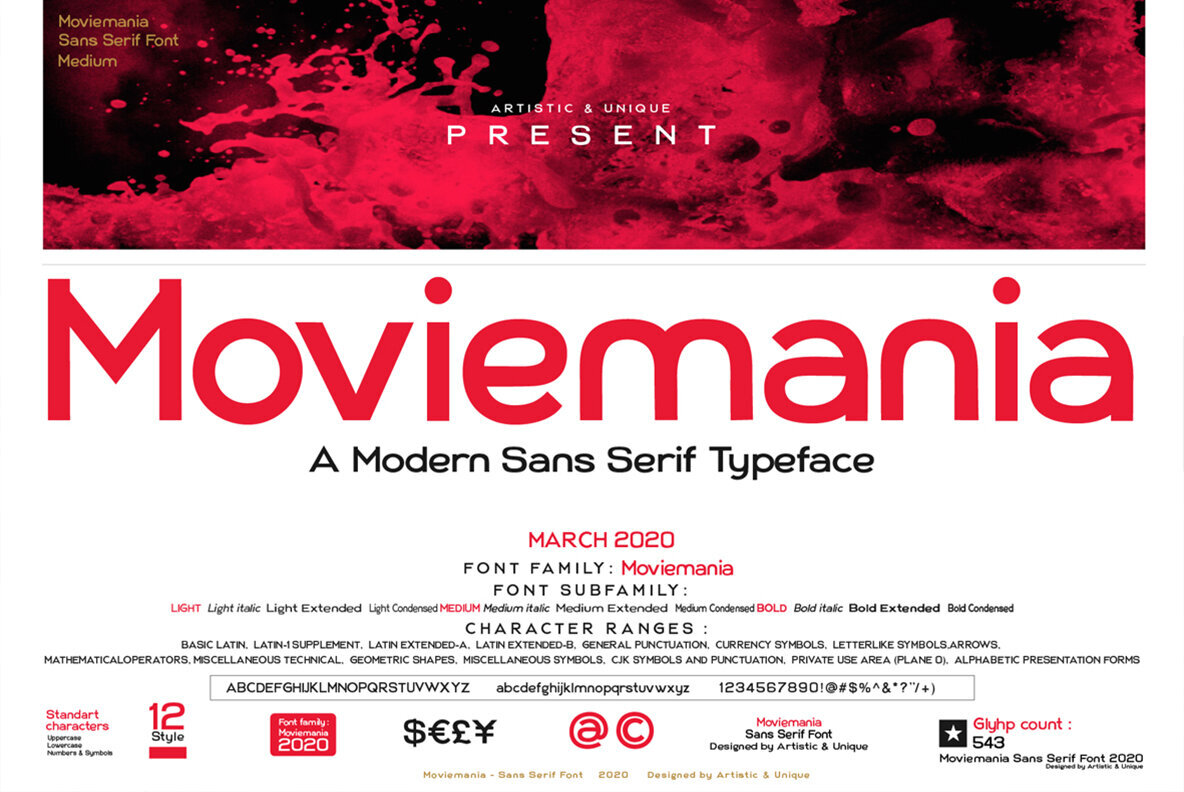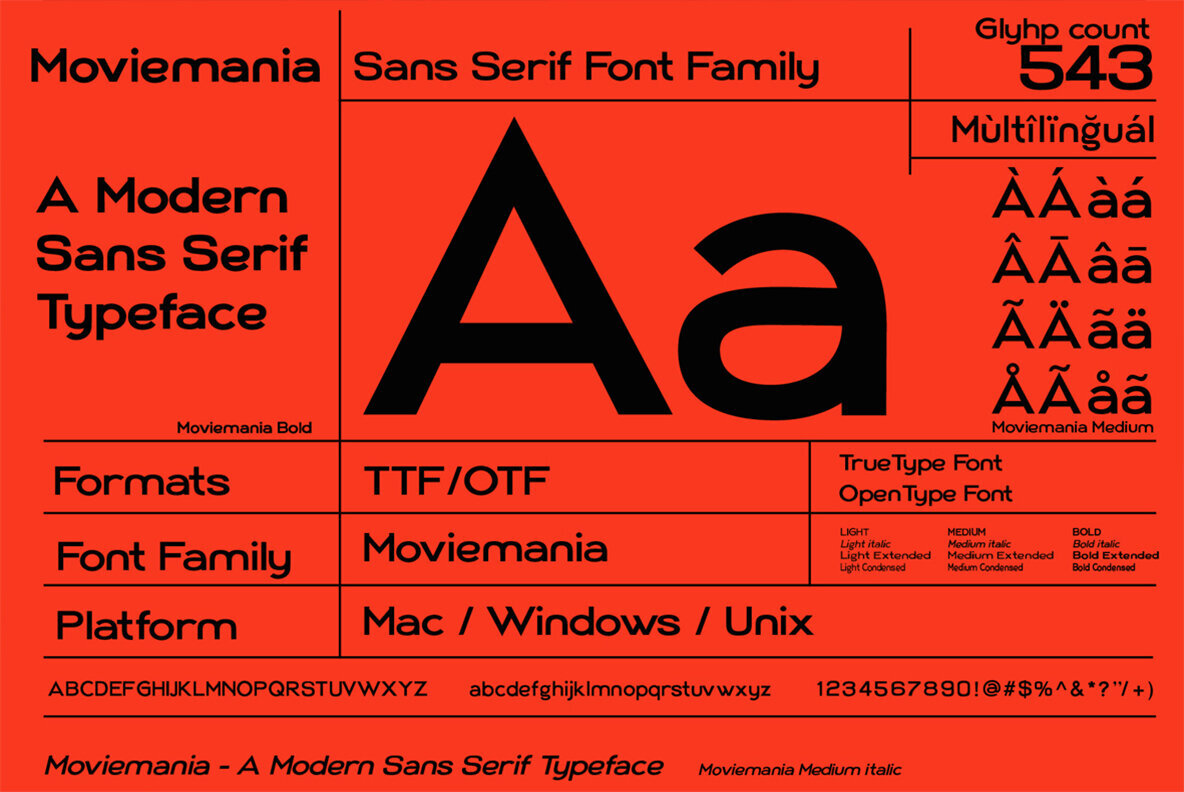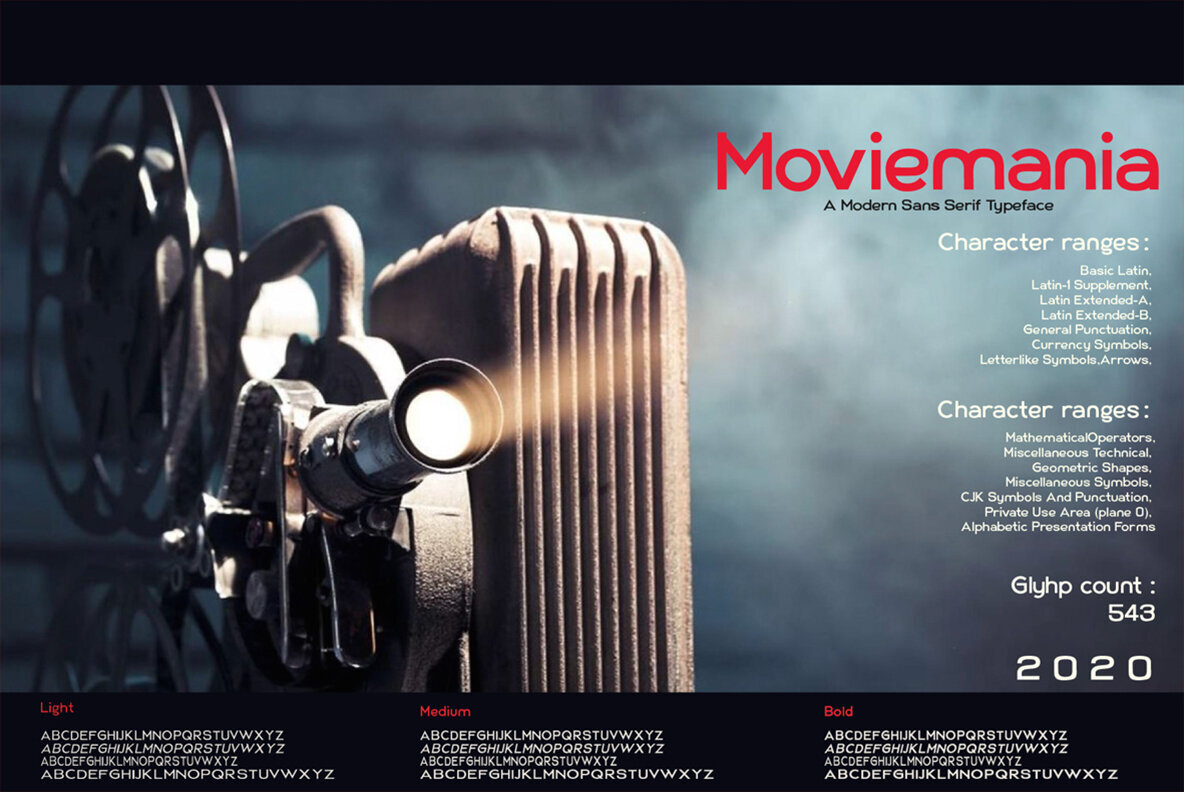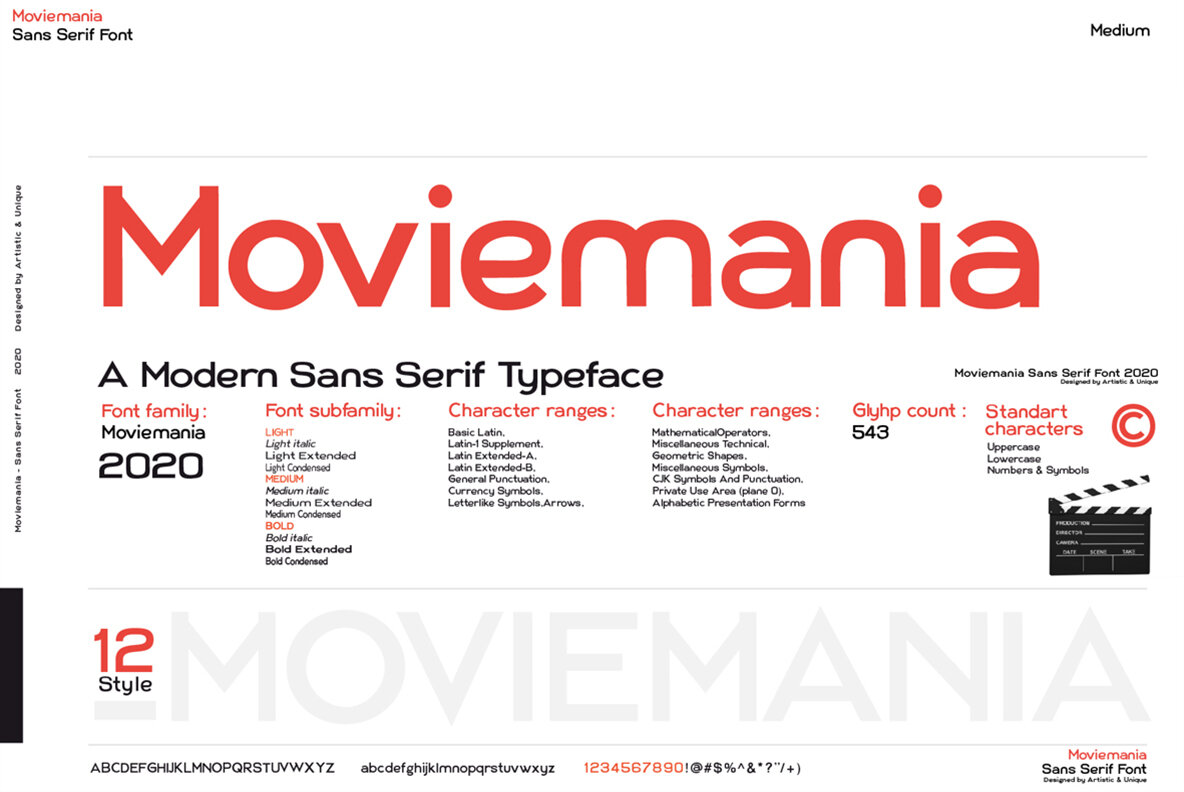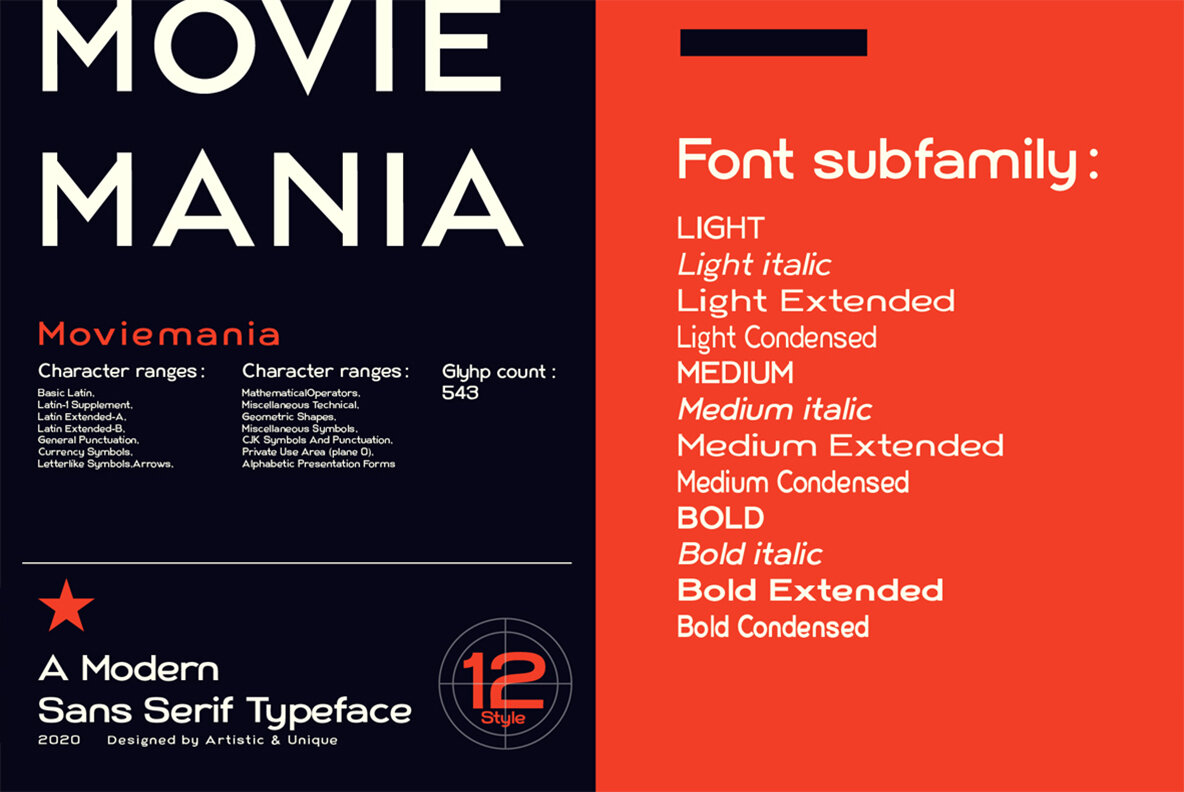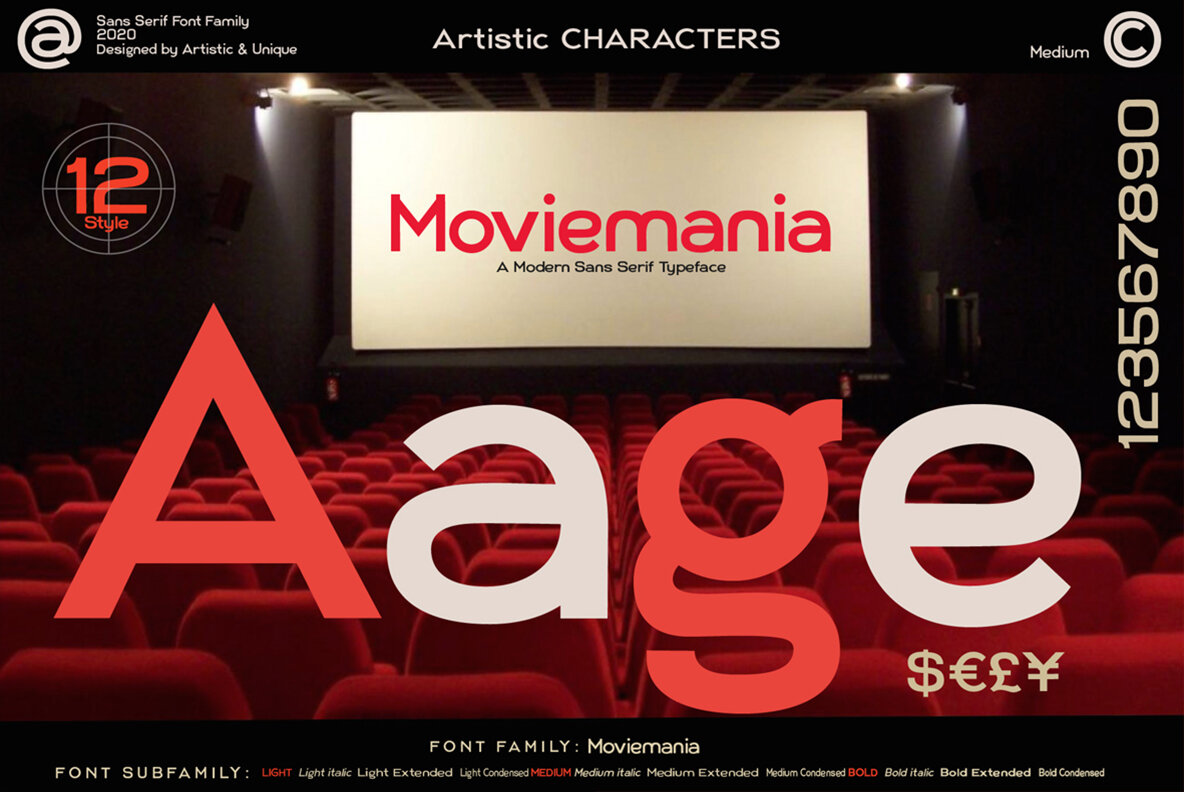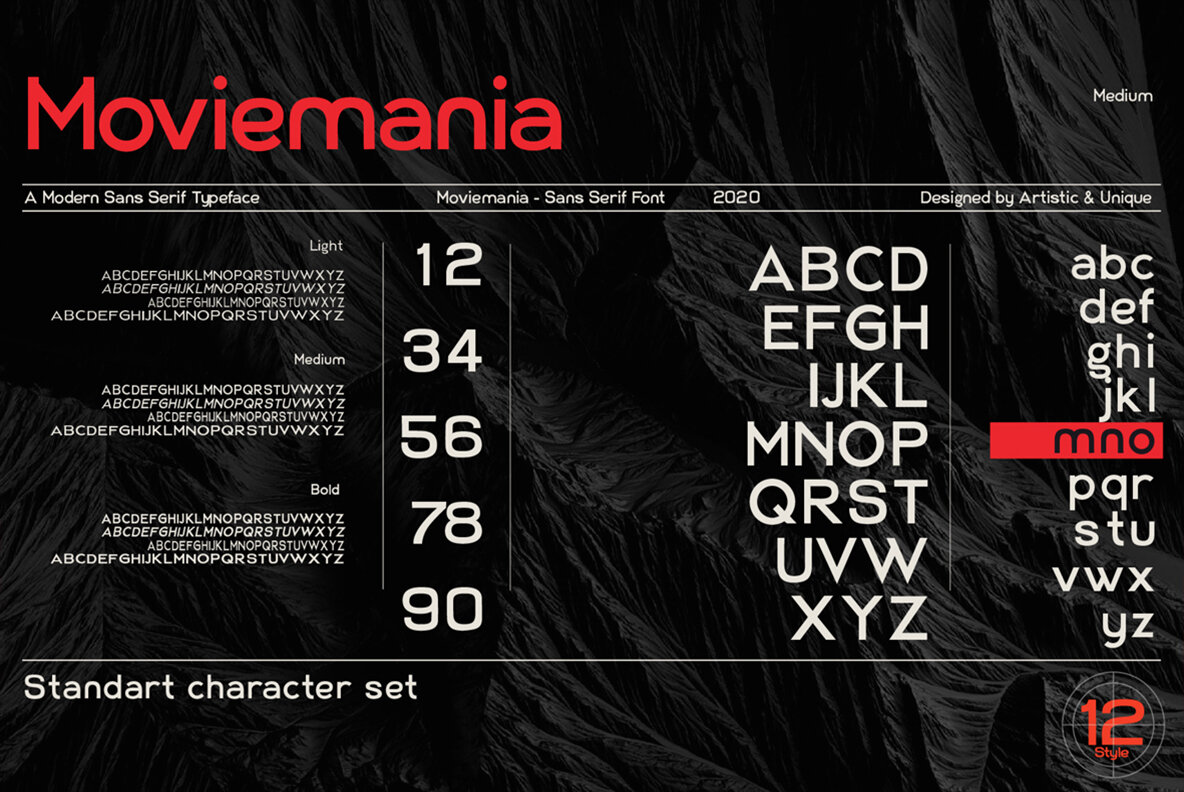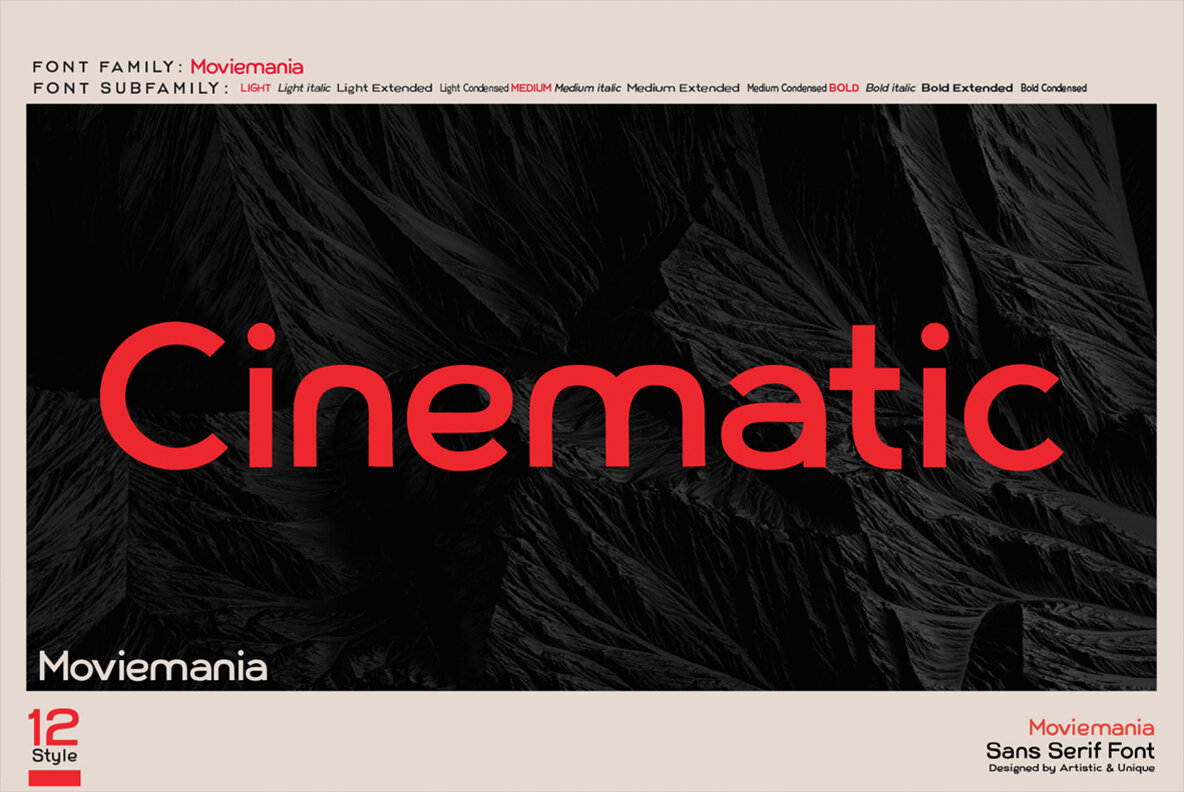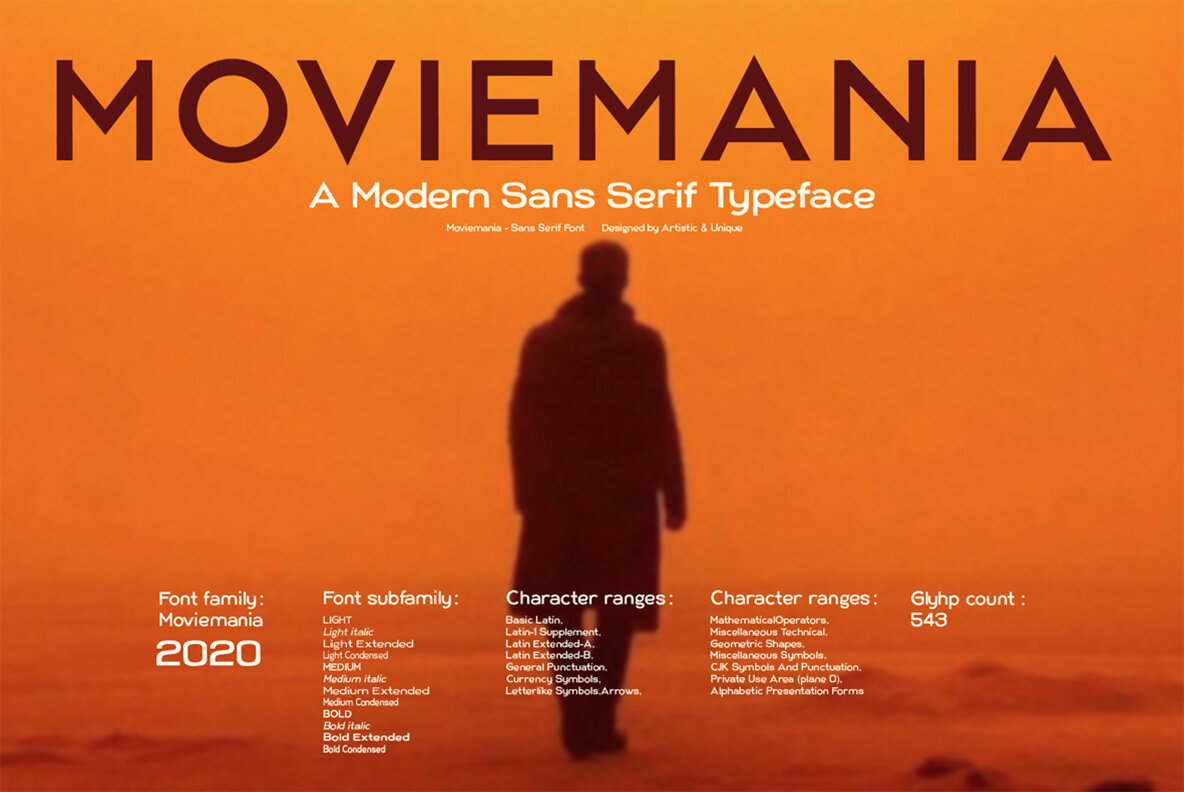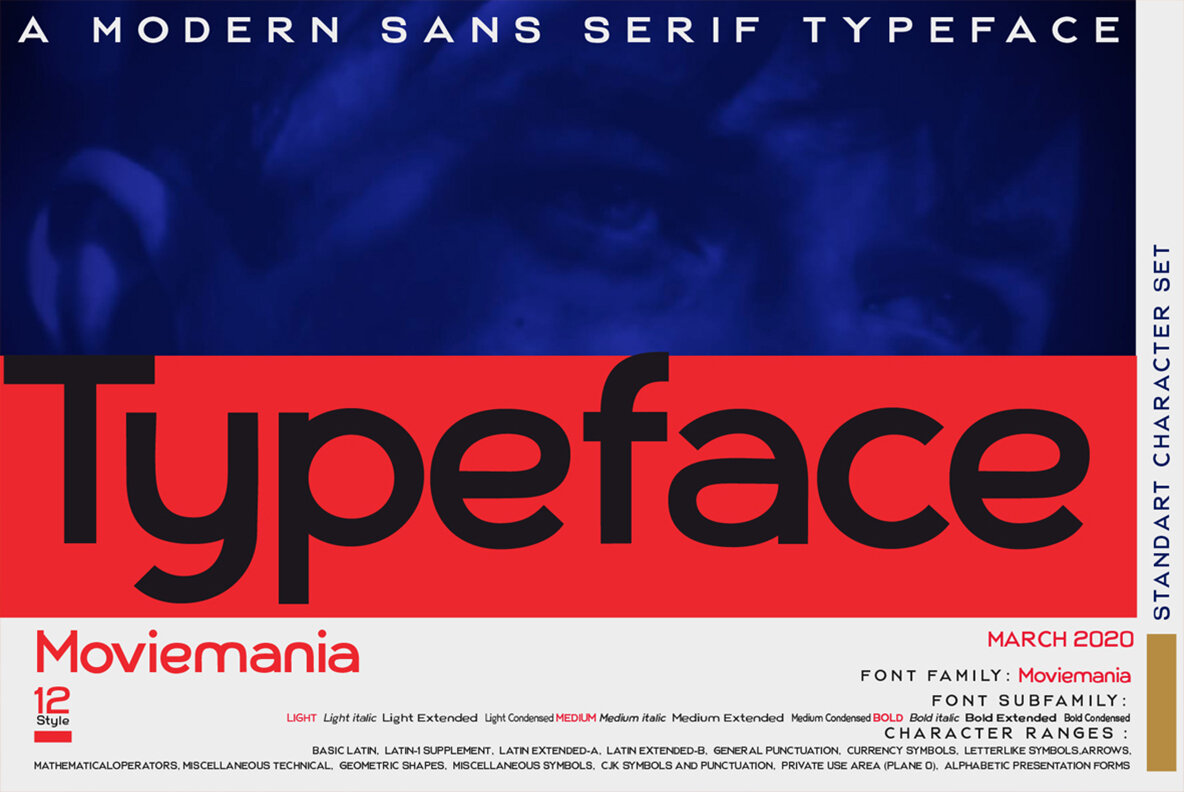
Moviemania Font
Discover the innovation of the Moviemania font family, a modern sans serif typeface that seamlessly blends sharp lines with gentle curves. Its unique design offers two stylistic options: sharp uppercases and soft lowercases, making it versatile for any project. Perfectly tailored for movie titles, magazines, branding, logos, and more, this font captures the essence of contemporary identity creation. Whether you're working on posters, packaging, digital platforms, or websites, Moviemania adapts effortlessly. Its architecture, composed of sharp angles and smooth transitions, sets the stage for dynamic expression in all projects. Comprising 543 glyphs, Moviemania includes uppercase and lowercase characters, numbers, symbols, and supports multiple languages, making it an all-encompassing choice for diverse creative needs.Moviemania Font Family
Perfect for Modern Design
Comprehensive Character Set
Glyph Details